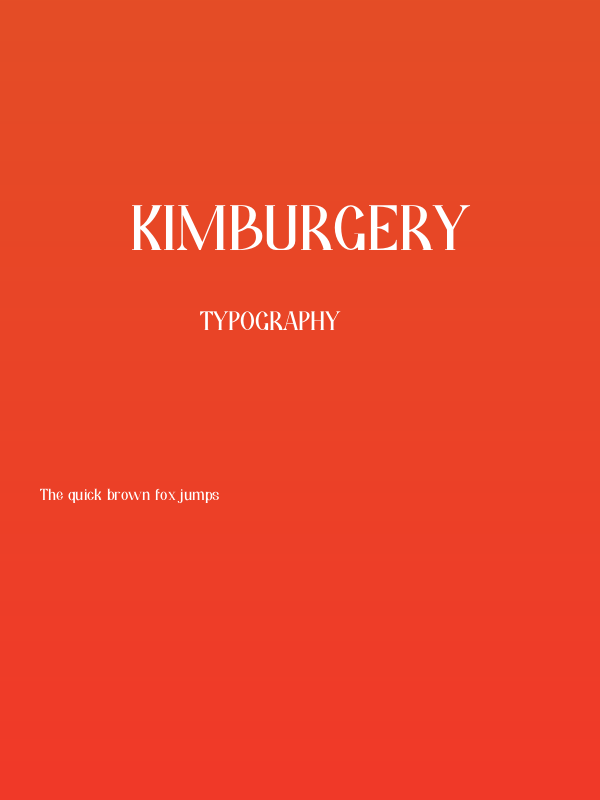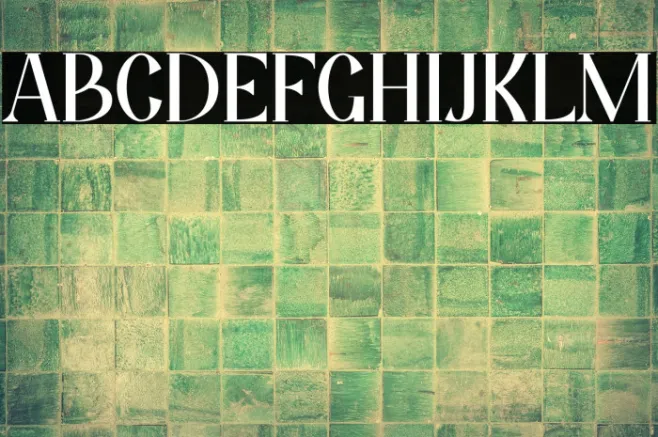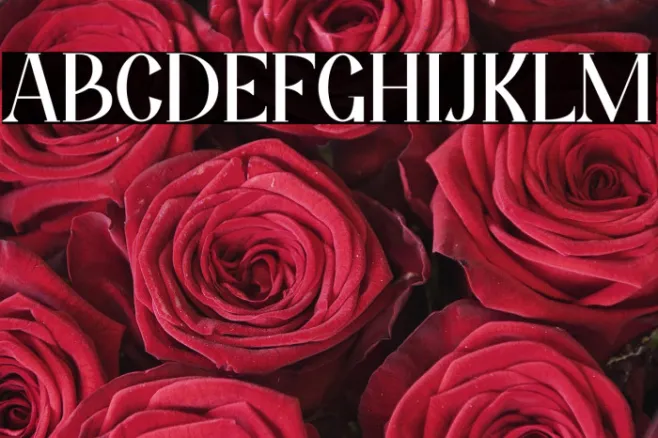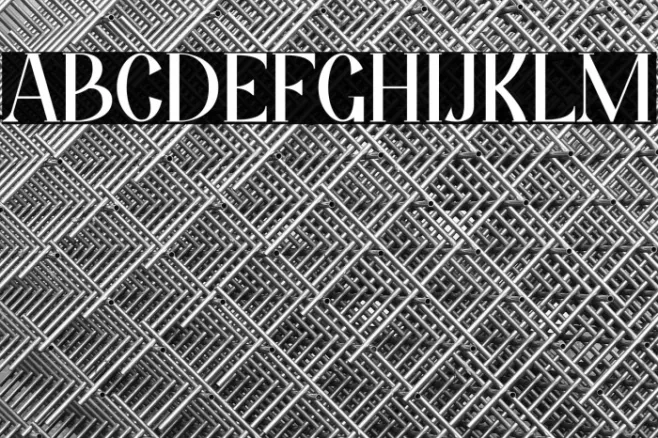
Kimburgery Font
Kimburgery Description
This font features a sophisticated and modern serif style with high contrast between thick and thin strokes. The uppercase letters exhibit a strong presence with sharp serifs and elegant curves, while the lowercase letters maintain a consistent style with a touch of flair in their ascenders and descenders. The numerals are bold and clear, making them highly legible. Special characters are designed with the same attention to detail, ensuring a cohesive look across all glyphs. The overall design is both classic and contemporary, making it versatile for various applications.
| Proposed Projects | Ideal for editorial design, luxury branding, book covers, and high-end packaging. |